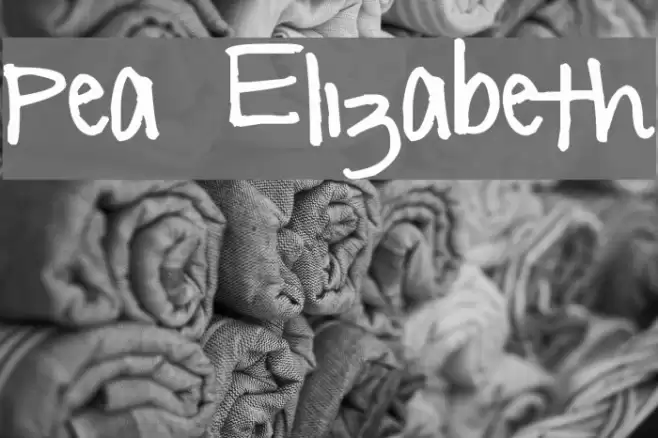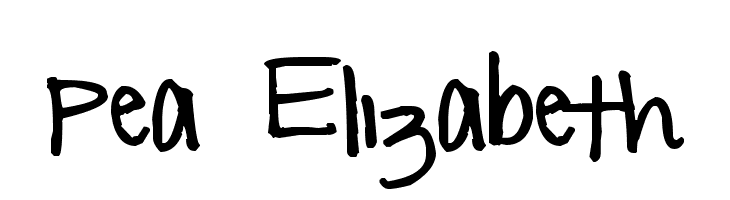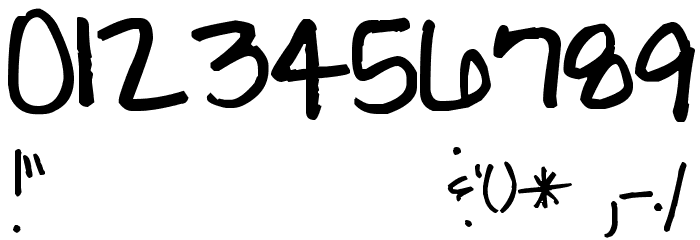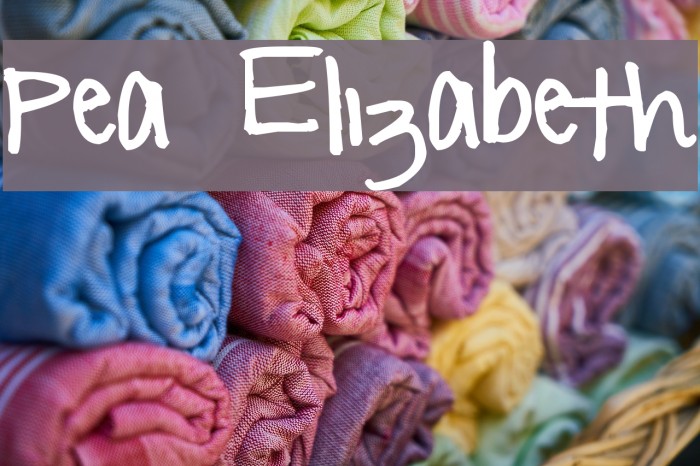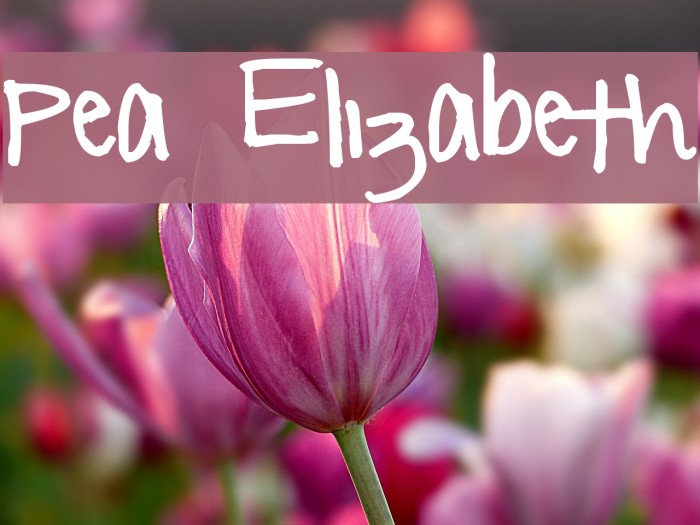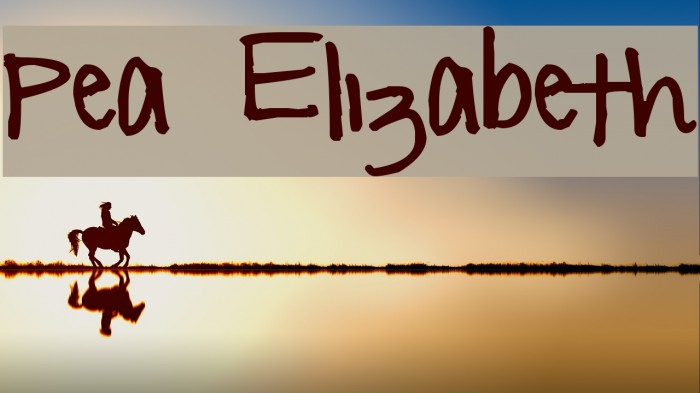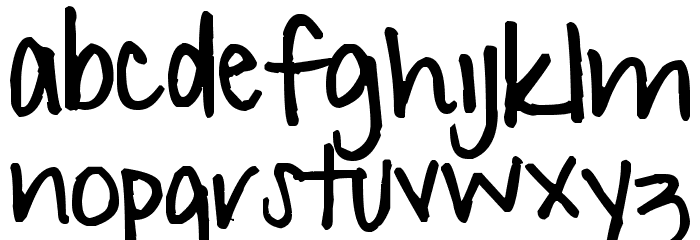
Pea Elizabeth Font
Pea Elizabeth Description
This font features a playful and casual handwritten style, characterized by its loose and informal strokes. The letters have a natural flow, with varying thickness that adds a personal touch. The uppercase and lowercase letters maintain a consistent style, with rounded edges and slight slants that give it a relaxed appearance. The numbers and special characters follow the same playful design, making it suitable for projects that require a friendly and approachable feel. The overall look is reminiscent of handwriting with a marker, offering a sense of authenticity and warmth.
A playful, casual handwritten font with a relaxed and friendly style from Uncategorized fonts.
- Proposed Projects: Ideal for greeting cards, personal notes, children's books, and informal branding projects.
- Overall Style: Casual, Playful
- Use Case: Headlines, Informal text, Personal projects